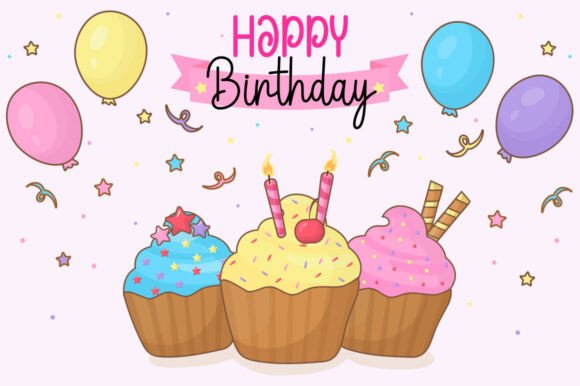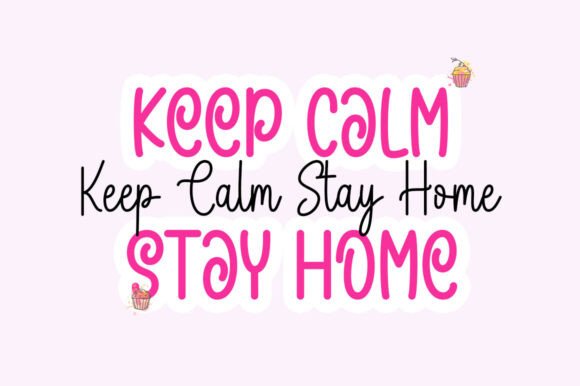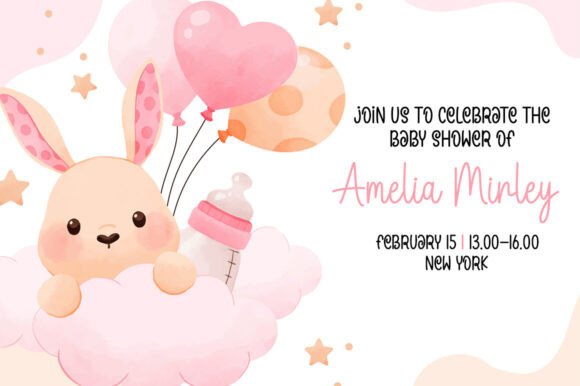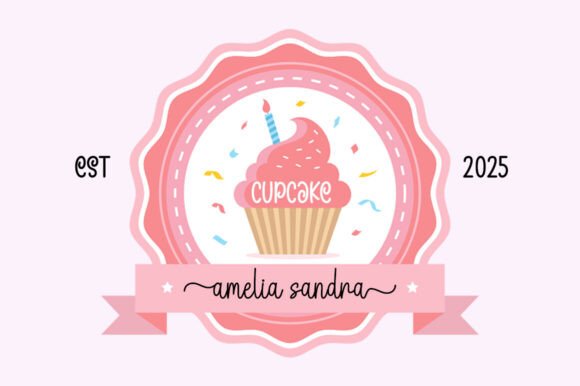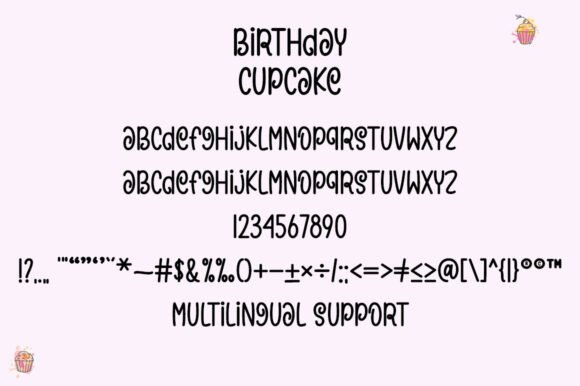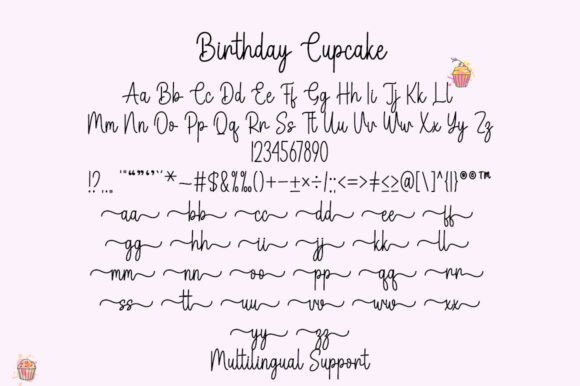
The Perfect Pair for Your Next Creative Project
Have you ever stared at a blank canvas, trying to come up with the perfect way to express your feelings? Perhaps you’re planning a birthday celebration, and you want your card or invitation to truly stand out. That’s where the Birthday Cupcake Duo Font comes in – a stylish and delicate duo font that’s sure to add a touch of romance to your creations.
This beautifully crafted font is a perfect blend of sans serif and script styles, making it suitable for a wide range of applications, from greeting cards to headlines. Its PUA encoding also ensures that you can easily access all the glyphs and ligatures, giving you complete creative freedom. Whether you’re a seasoned designer or just starting out, the Birthday Cupcake Duo Font is a valuable addition to your toolkit.
Birthday Cupcake Duo Font Key Features
- Font Style: A fun and playful font duo, perfect for birthday celebrations and parties.
- Font Size: The font comes in 2 sizes: Regular (300 DPI) and Large (600 DPI), catering to different design needs.
- Unique Characteristics: Each font includes 4 variations of the cupcake design, allowing for creative expression and customization.
- Resolution: Designed at 300 DPI for high-quality printing and 600 DPI for large-scale applications.
- Characters: Includes uppercase and lowercase letters, numbers, and punctuation marks, making it a versatile font for various projects.
Birthday Cupcake Duo Font Review
I recently had the chance to work with the Birthday Cupcake Duo Font, and I must say it’s a sweet addition to any design project (pun intended) ✨. The font’s playful and whimsical nature makes it perfect for birthday party invitations, social media graphics, or even food blogs.
The font’s strengths include:
- High-quality vector graphics for crisp and clear output ✨
- Customizable sizes and colors to fit any design requirement ✨
- Cute and celebratory feel that’s sure to bring a smile to users’ faces ✨
- May not be suitable for formal or professional designs, as it’s quite playful and casual ⚠️
- Some letters may not be easily readable in small font sizes ⚠️
- May require additional design elements to make it stand out in crowded designs ⚠️
Overall, I’d say the Birthday Cupcake Duo Font is a great choice for designers looking to add a fun and celebratory touch to their projects. With a little creativity, it can really shine and make your designs pop ✨.
Some tips for getting the most out of the Birthday Cupcake Duo font include:
- Using it for birthday invitations, party decorations, and other celebratory designs.
- Pairing it with other playful fonts for a whimsical look.